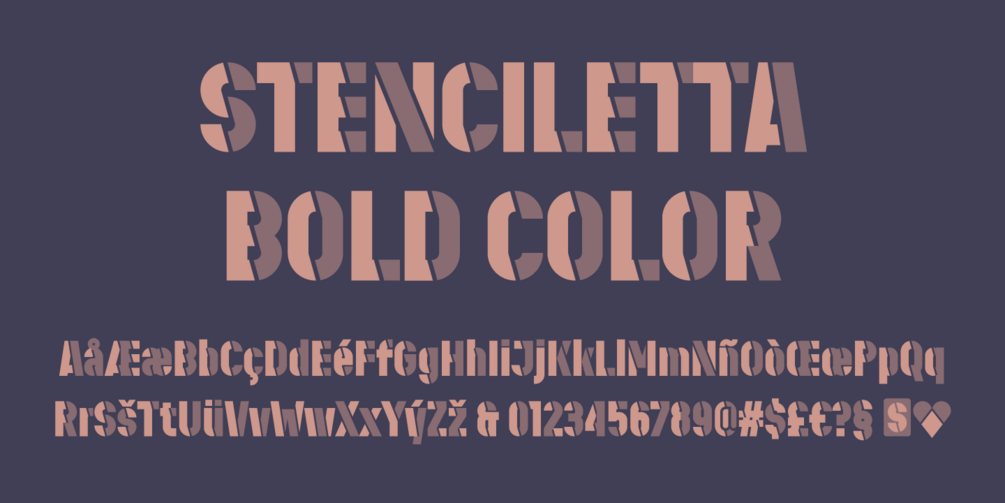
Stenciletta by Joachim Müller-Lancé is a monolinear type design with bridges placed where thinner lines would otherwise be. The distinctive slanted bridges (the little gaps) are parallel to the downstrokes, lending an interesting consistent texture somewhat like diagonal stripes.
Embracing that endearing aesthetic of having been created by engineers, like many early signage alphabets were, Stenciletta is constructed strictly from circles and straights in a limited set of angles on a square grid without overshoot.
Put it to work at display sizes for an instant industrial strength, analog appearance. Call Stenciletta in for action movies, extreme and contact sports, rough terrain, explosive themes, roller derby, or metal, rock, grunge and punk music.